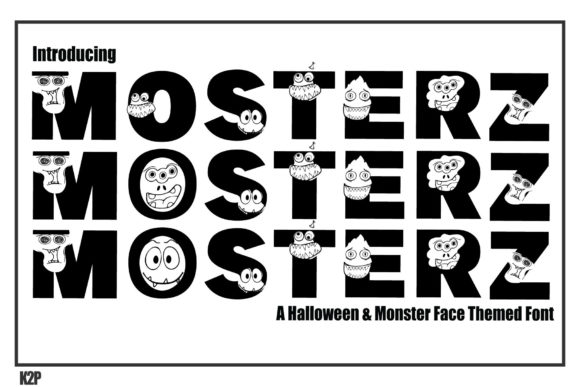
In a world of ordinary fonts, MonsterZ emerges from the depths of creativity, a thick-lettered decorative masterpiece that will cast a spell on your designs. Inspired by the spine-tingling essence of Halloween, this font is a haunting delight, a perfect companion for any project that seeks a touch of spooky elegance.
Unlock the gates of your imagination and let MonsterZ guide you through a labyrinth of enchanting possibilities. Its bold strokes, reminiscent of a haunted house's eerie architecture, will add a captivating charm to invitations, posters, and social media graphics. Unleash your inner artist and create logos that ooze personality, leaving an unforgettable mark on your audience.
But MonsterZ's allure extends far beyond the realm of Halloween. Its versatility knows no bounds, making it a treasure for any designer's toolkit. Craft eye-catching headlines that leap off the page, demanding attention with their captivating presence. Design business cards that exude professionalism and leave a lasting impression on potential clients. Let MonsterZ weave its magic into wedding invitations, adding a touch of whimsical elegance to the most romantic day of your life.
The possibilities are endless, limited only by the depths of your imagination. MonsterZ is a font that breathes life into your creative endeavors, transforming ordinary designs into captivating works of art. Its PUA encoding opens up a world of glyphs and swashes, empowering you to add intricate details that elevate your designs to new heights.
Take a bold step into the world of MonsterZ, where creativity knows no fear. Let this font be your guide through the shadows, casting a spellbinding aura on all your projects. Its haunting beauty will leave an unforgettable impression, captivating your audience and leaving them spellbound.